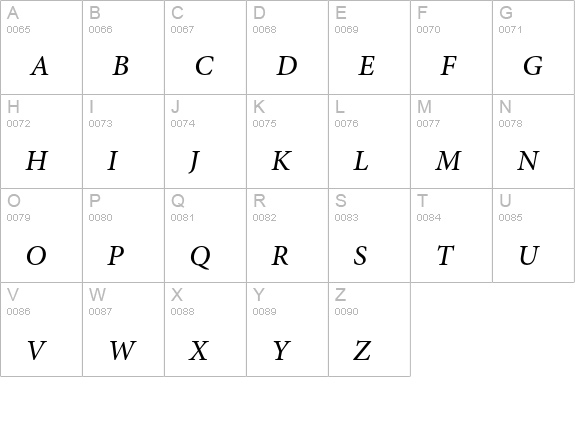
Adobe Arabic Italic Font Details
Adobe Arabic Italic is a distinctive, italic variant in the Adobe typeface family \xE2\x80\x94 well suited to design and typography projects.
The Adobe Arabic Italic font is a stunning and elegant typeface that adds a touch of sophistication to any design project. Its graceful curves and delicate strokes make it perfect for adding a touch of Arabic flair to your work. This font is perfect for creating invitations, posters, logos, and more. Best of all, the Adobe Arabic Italic font is available for free download at FontsMarket.com. So, you can easily add this beautiful typeface to your collection without any cost. Don't miss out on the opportunity to enhance your designs with this exquisite font!